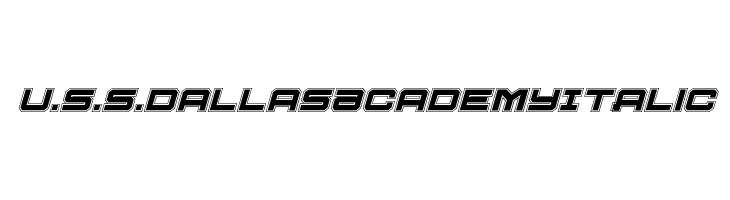
A bold, angular font with a futuristic and sporty style.
A bold, outlined font with a futuristic and sporty style.
A bold, italicized font with a futuristic and sporty design.
Bold, italic font with dynamic outlines and a sporty feel.
A bold, italicized font with a futuristic, sporty look and outlined characters.
A bold, italicized font with a modern, sporty design.
A bold, italicized font with a futuristic and sporty design.